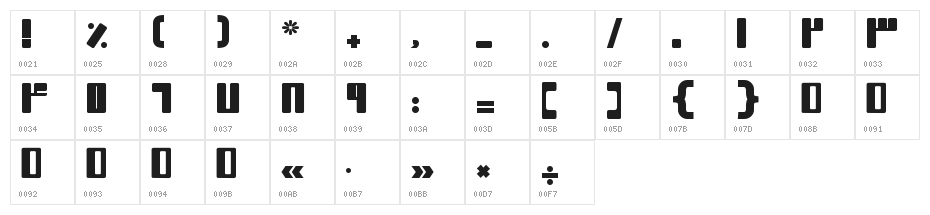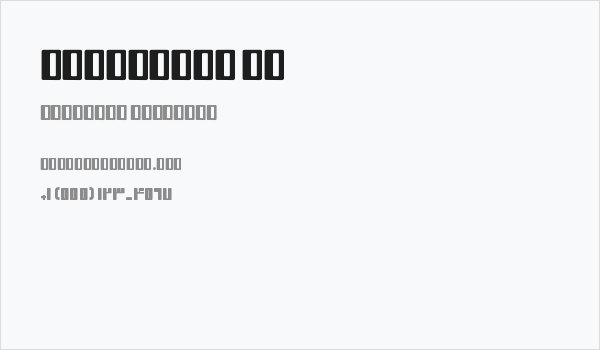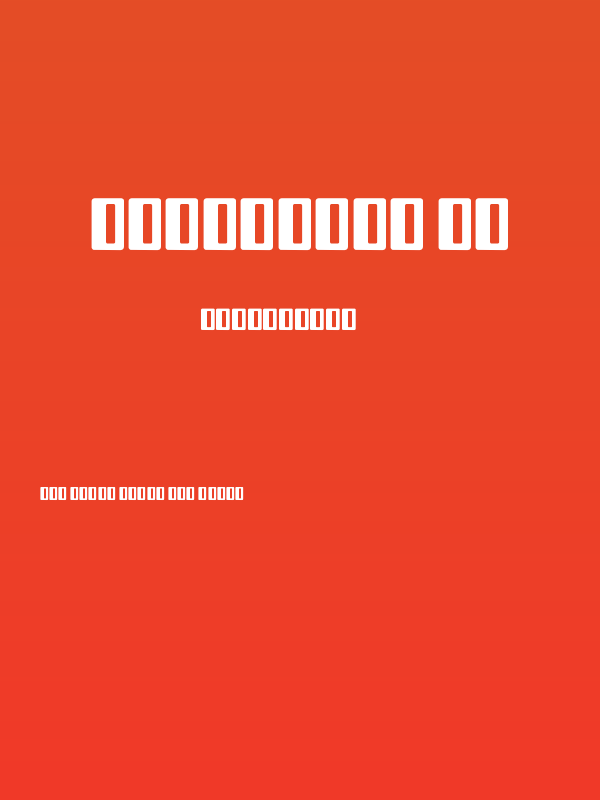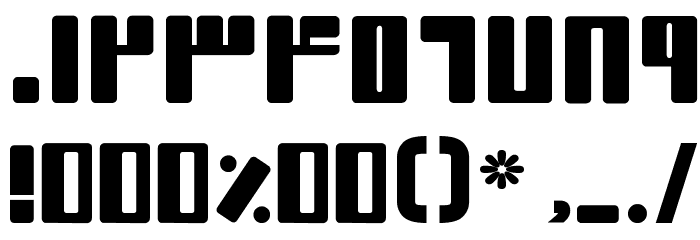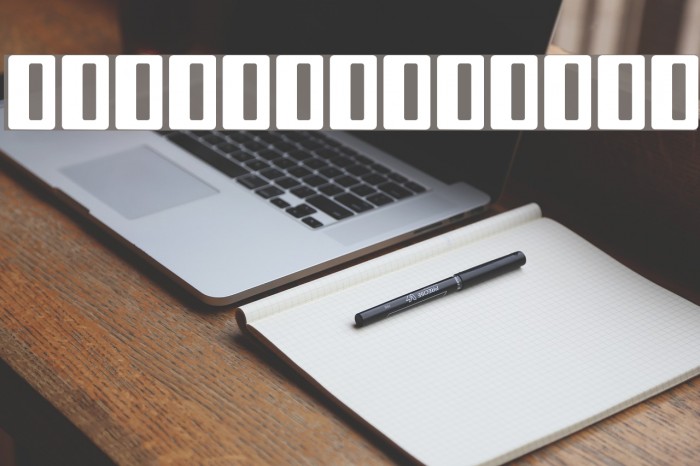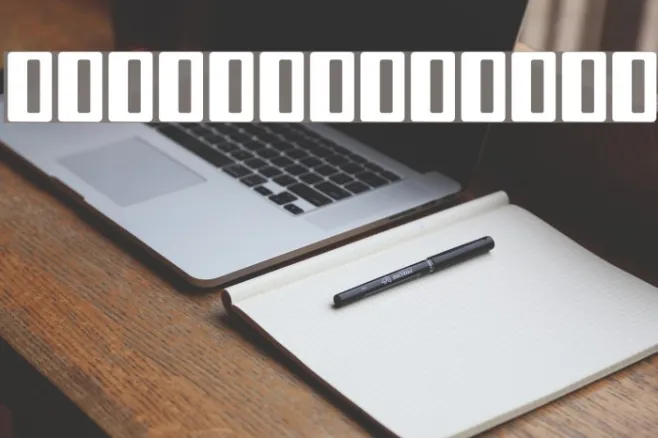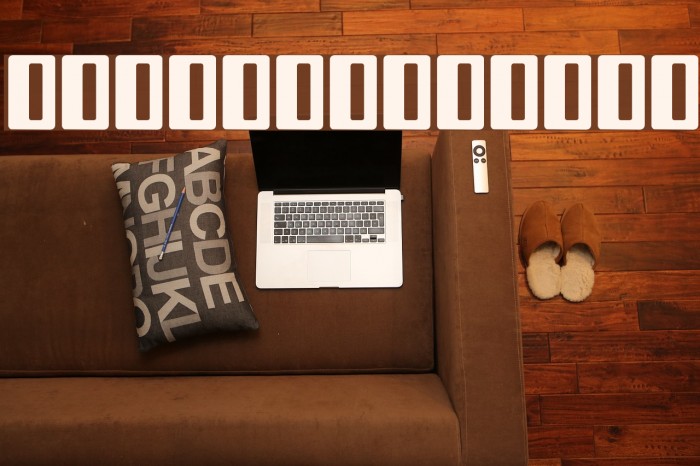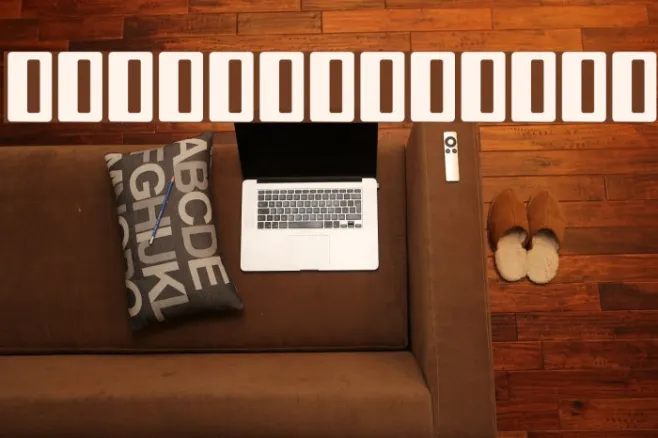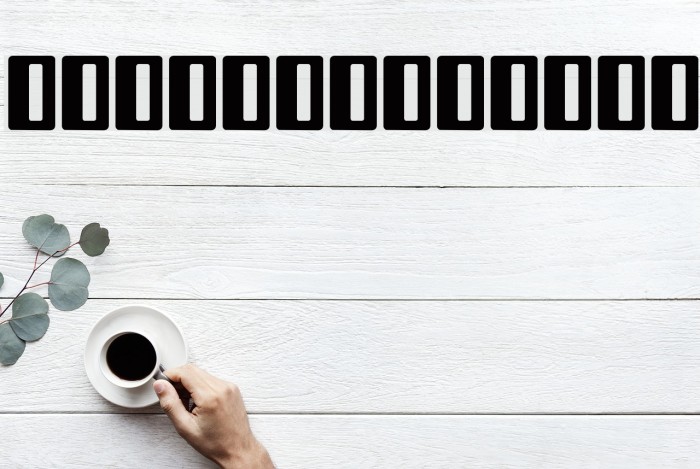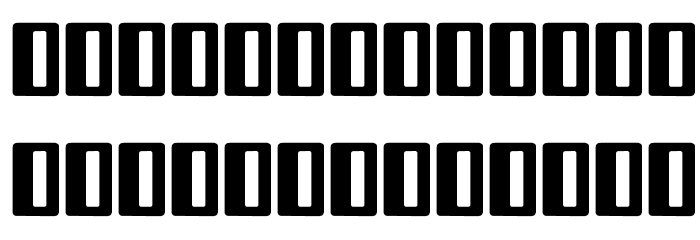
Rectangle II Font
Rectangle II Description
This font features a bold, geometric style with a strong emphasis on rectangular shapes and uniformity. Each character is constructed with thick, block-like strokes, creating a sense of solidity and stability. The design is highly structured, with consistent vertical and horizontal lines that give it a modern, industrial feel. The characters are evenly spaced, contributing to a clean and organized appearance. The font's boldness makes it highly legible, even at smaller sizes, while its unique geometric design adds a distinctive touch to any text.